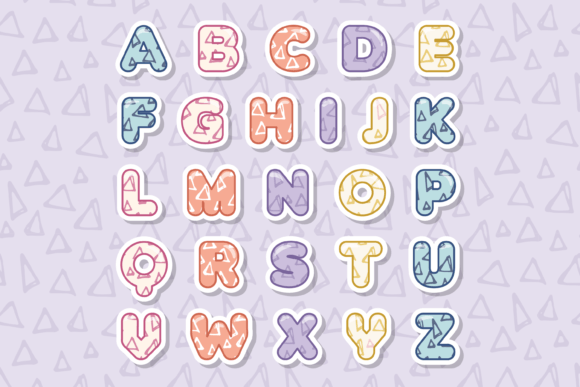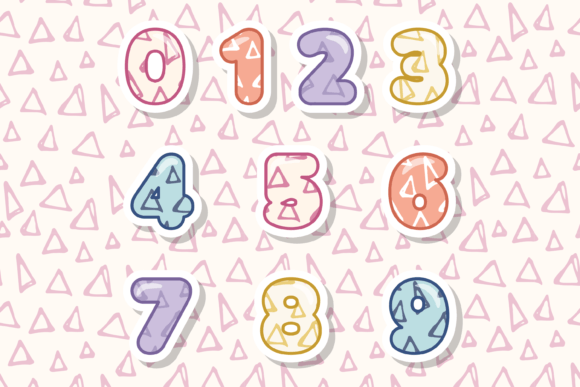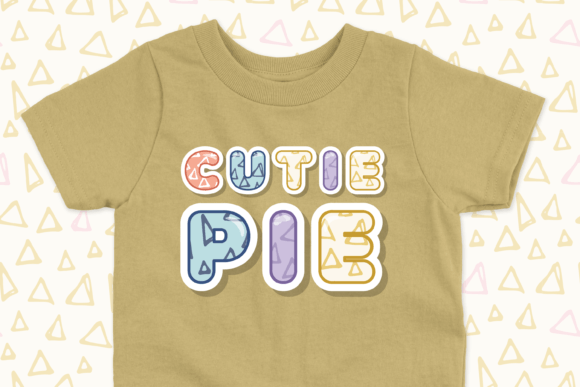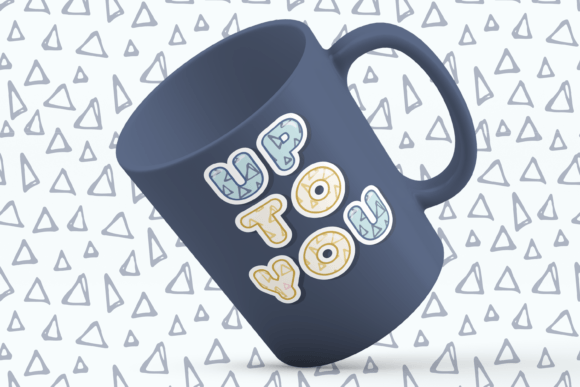
The Cute Trigon Font: A Triangle Pattern Delight for Designers and Crafters
I’ll never forget the time I was working on a custom design project for a client who wanted a unique and playful font to match their brand’s quirky personality. As I scrolled through my font library, I stumbled upon the Cute Trigon Color font, and it was love at first sight! 💕 The triangle pattern design was not only visually appealing but also perfectly captured the essence of the client’s brand. In this article, I’ll share my experience with the Cute Trigon Font, its features, and how to make the most of it on various design platforms.
An Honest Review of Cute Trigon Font
- Unique triangle pattern design that’s perfect for custom designs, DIY crafts, and creative projects ✅
- Easily adds a lovely touch to any creation, making it ideal for designers, crafters, and hobbyists 🎨
- Supports OpenType features, glyphs, and stylistic alternates for advanced typography 🔍
While the Cute Trigon Font is an amazing choice for many design projects, there are a few things to keep in mind:
The Designer Inspiration Behind Cute Trigon Font
The Cute Trigon Font was designed with the intention of creating a unique and playful font that captures the essence of triangle patterns. The designer aimed to create a font that’s not only visually appealing but also easy to use and versatile. With its color font features and OpenType support, the Cute Trigon Font is perfect for designers, crafters, and hobbyists looking to add a touch of personality to their creations.